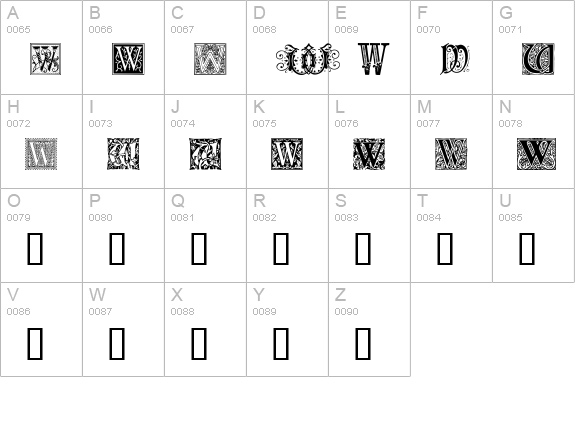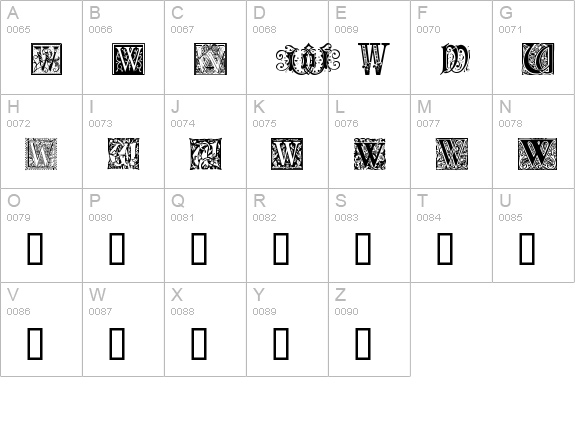
Ornamental Initials W font is a stunning and elegant typeface that adds a touch of sophistication to any design. Featuring intricate details and ornate embellishments, this font is perfect for creating eye-catching headlines, invitations, and more. The ornamental initials give a luxurious and classic feel to your projects, making them stand out from the crowd. Best of all, Ornamental Initials W font is completely free to download at FontsMarket.com. With its timeless design and versatility, this font is a must-have for any designer looking to add a touch of elegance to their work. Download Ornamental Initials W font today and elevate your designs to the next level!